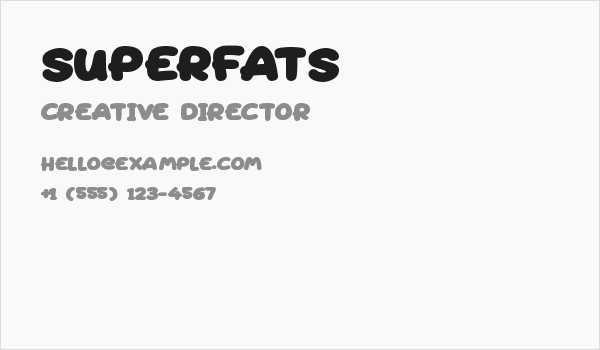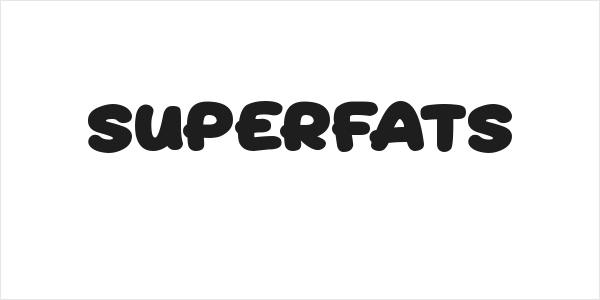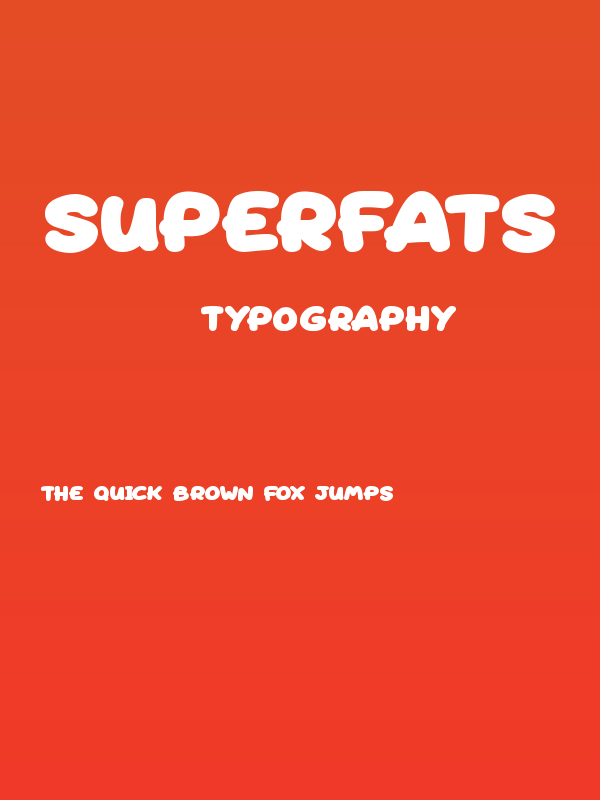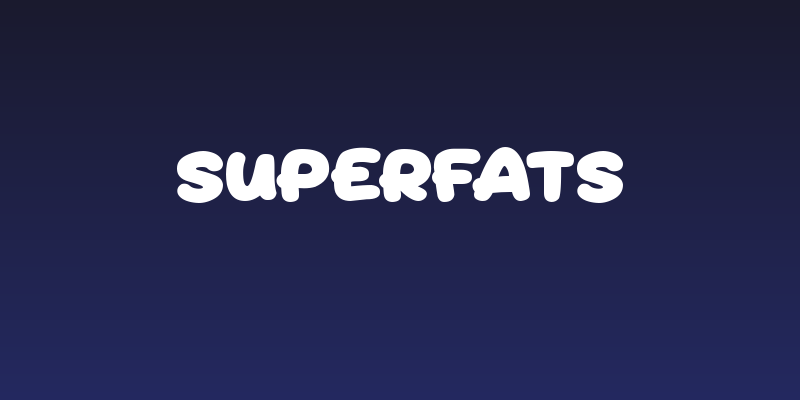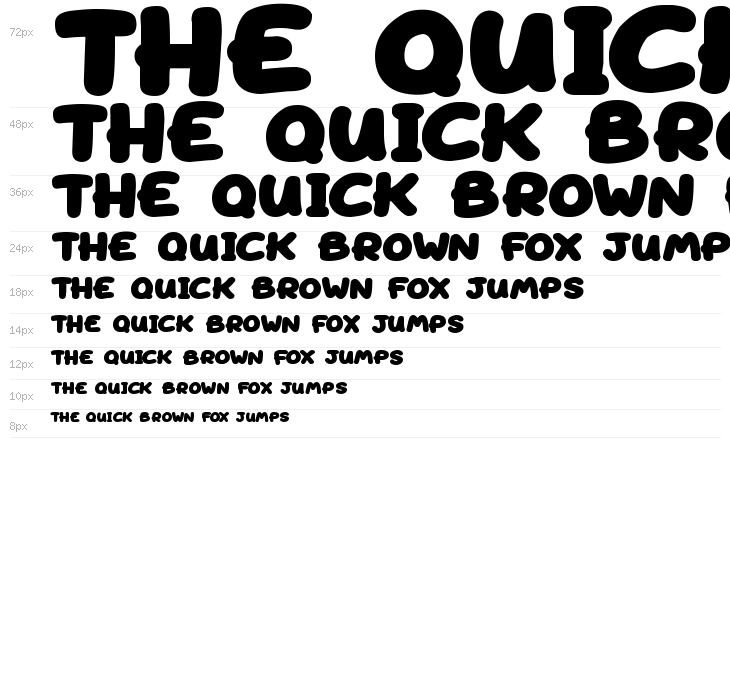
Superfats Font
Superfats Description
This font features bold, rounded characters with a playful and chunky appearance. The letters are uniformly thick, giving them a strong presence and making them highly legible even from a distance. The rounded edges and lack of sharp angles contribute to a friendly and approachable feel. The numbers and special characters maintain the same boldness and roundness, ensuring consistency across all glyphs. This style is particularly suitable for designs that require a fun and informal touch, such as children's books, playful branding, or eye-catching headlines.
| Proposed Projects | Ideal for children's books, playful branding, eye-catching headlines, and informal designs. |